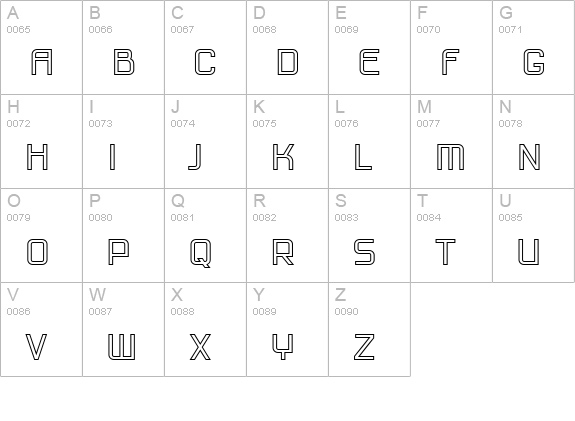
PFHausSquarePro-Outline Font Details
PFHausSquarePro-Outline is a modern and sleek font that adds a touch of sophistication to any design project. With its clean lines and geometric shapes, this font is perfect for creating eye-catching headers, titles, and logos. The outline style gives it a unique and contemporary look that will make your designs stand out. The best part about PFHausSquarePro-Outline is that it is available for free download at FontsMarket.com. This means you can add this stylish font to your collection without having to spend a penny. Whether you're a graphic designer, a web developer, or anyone looking to elevate their design game, PFHausSquarePro-Outline is a versatile and stylish choice that won't disappoint. Download it today and start creating stunning visuals with ease!